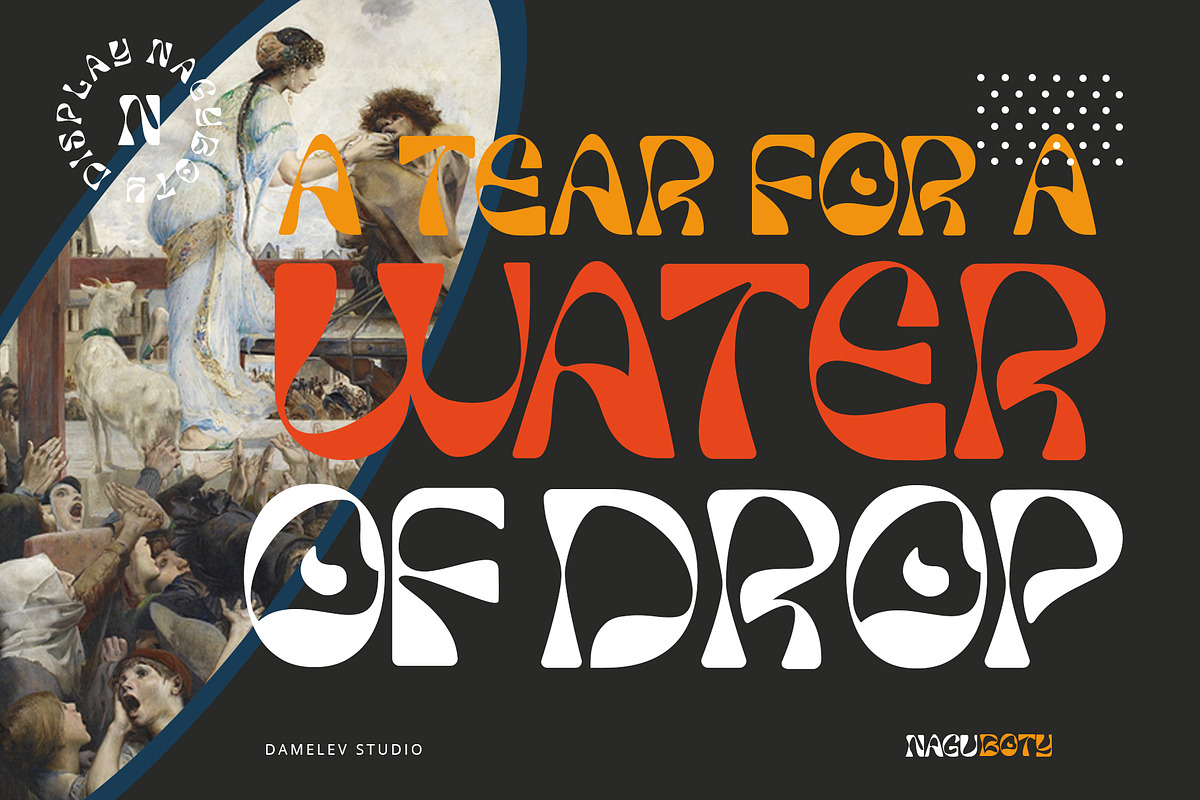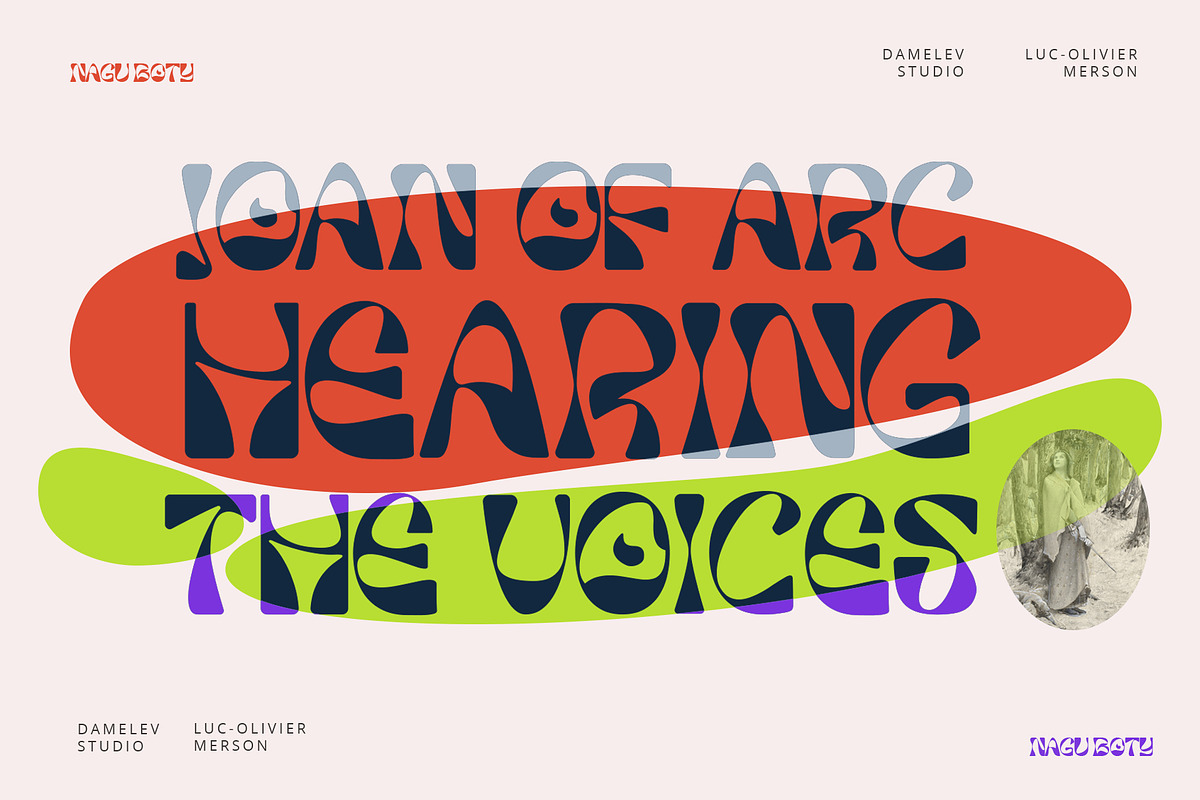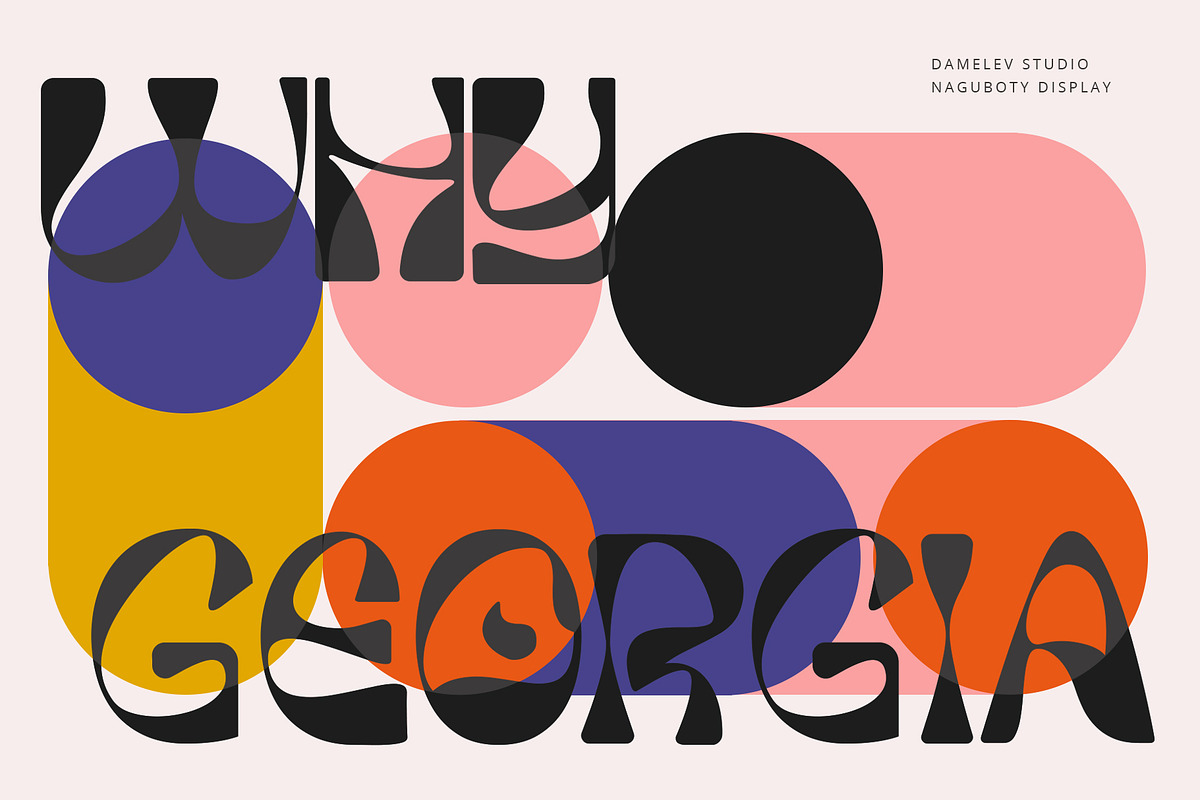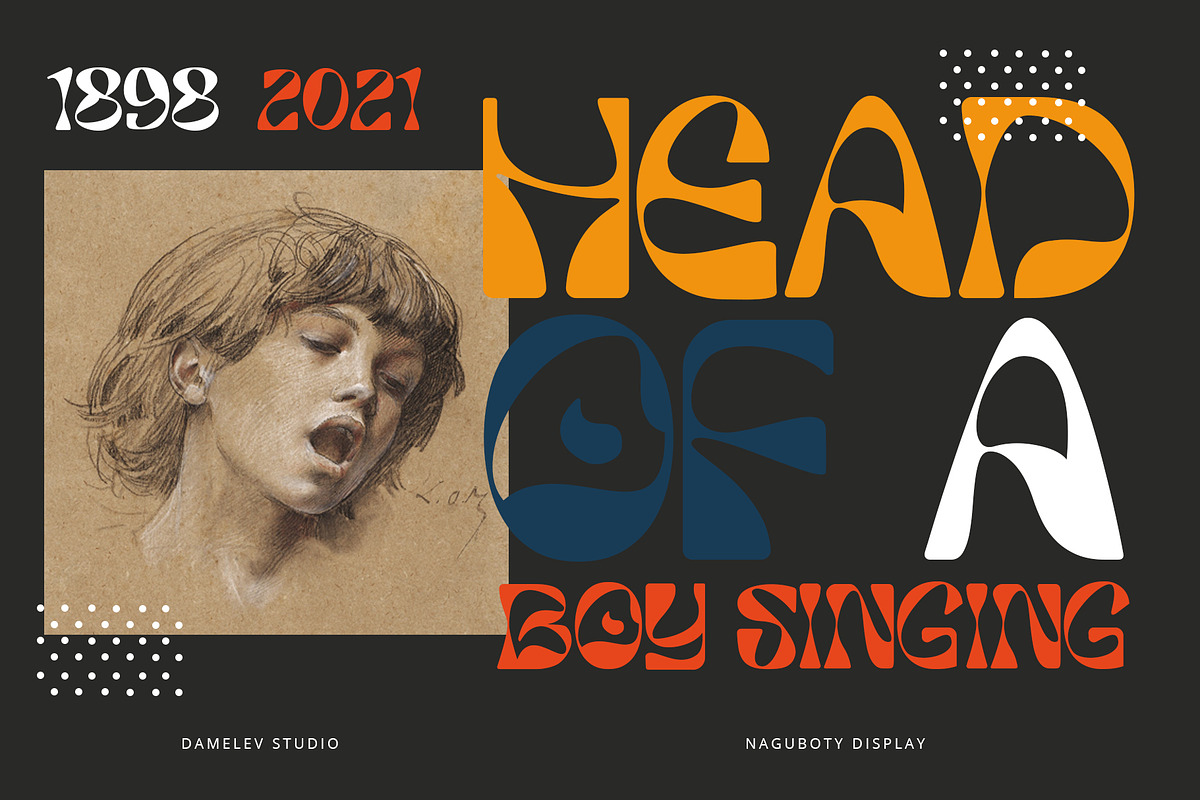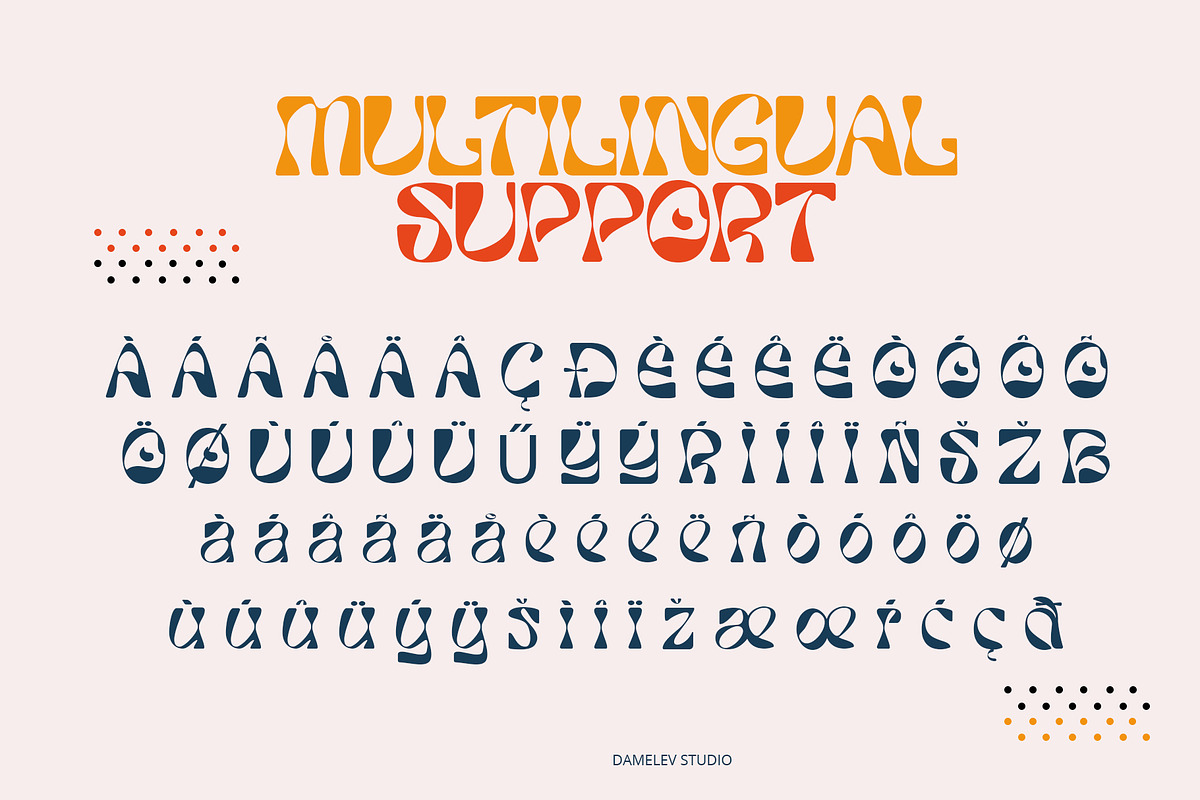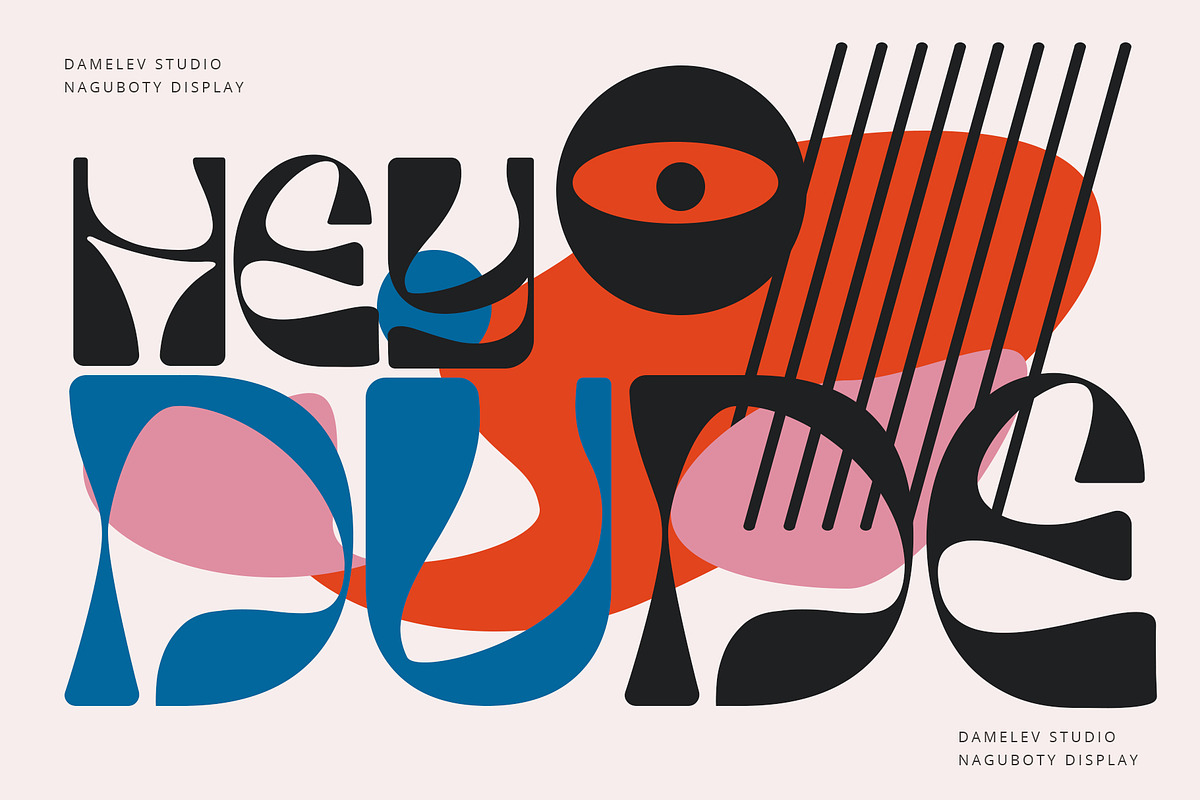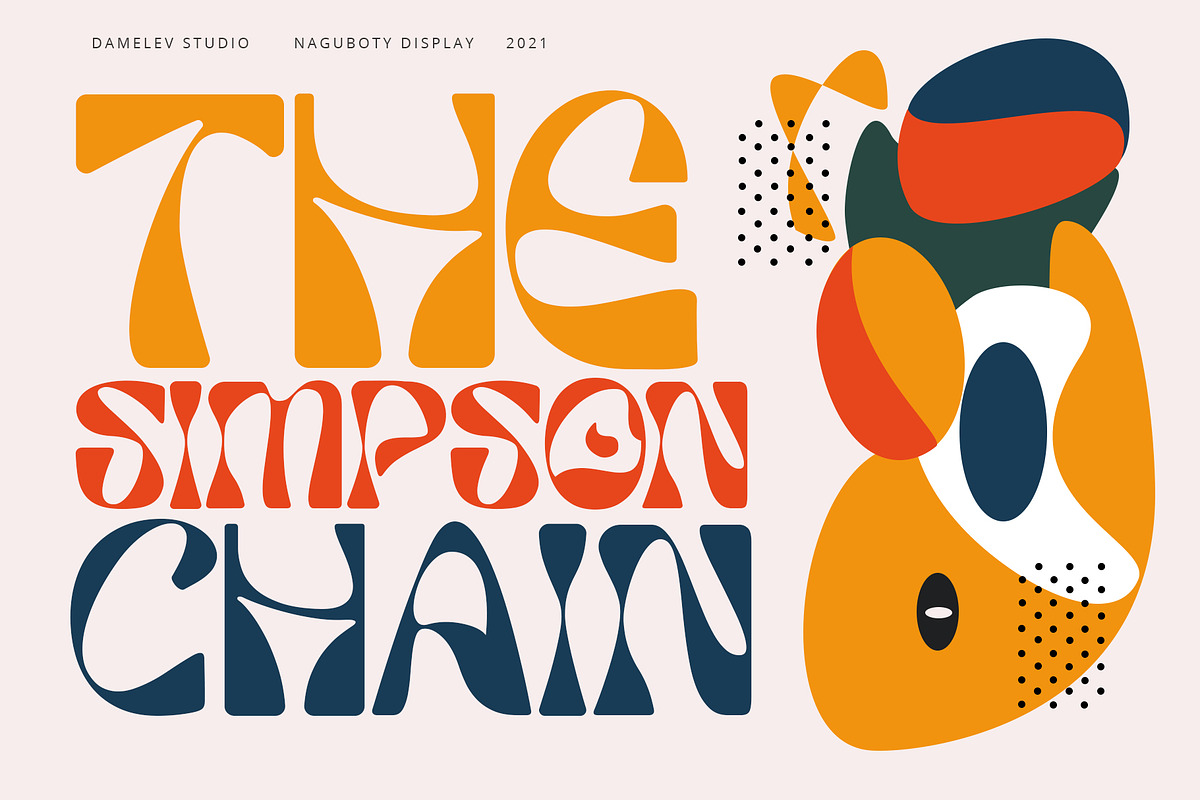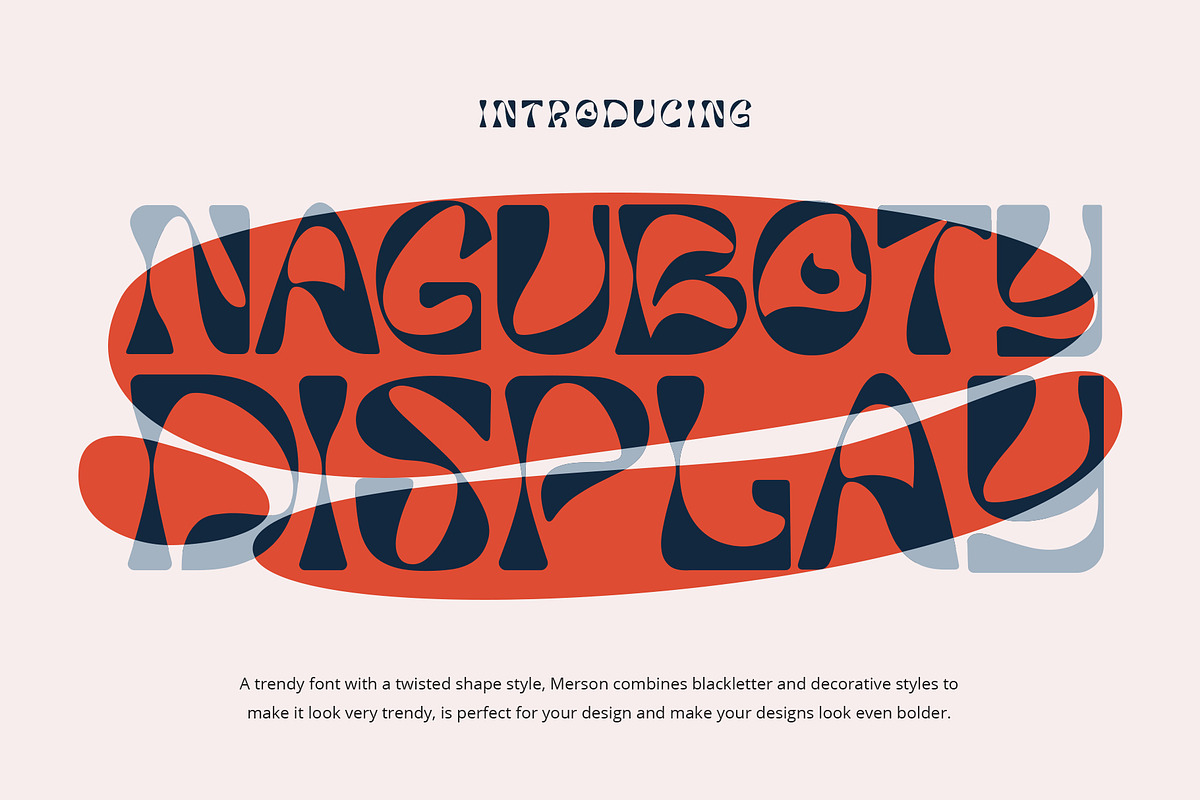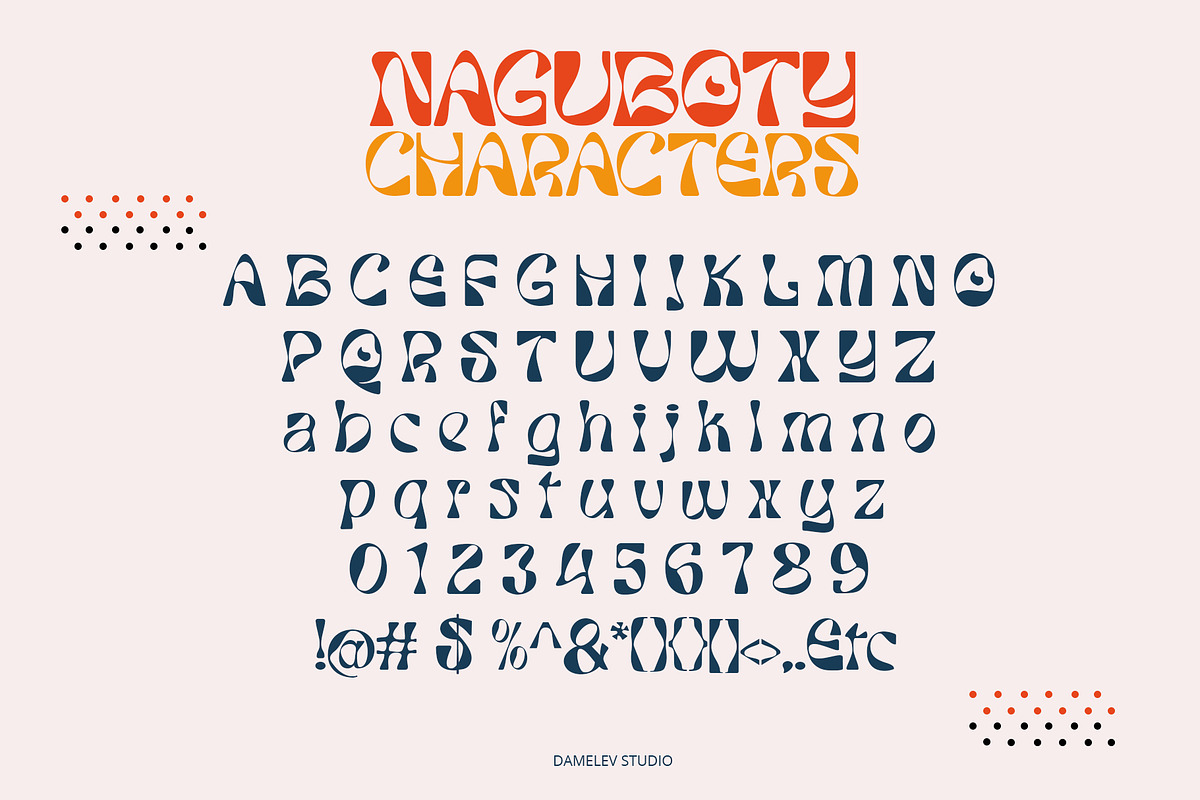
Naguboty Display
Naguboty Display is a trendy font with a twisted shape style, Merson combines blackletter and decorative styles to make it look very trendy, is perfect for your design and make your designs look even bolder.
It works perfectly for creative project such as logo, T-shirt / apparel, badge, invitation, packaging,headline, poster, magazine, greeting card, and wedding invitation. You can access the open type features and multilingual on mostly Adobe programs, such as Adobe Indesign, Adobe Illustrator, Adobe photoshop. etc.